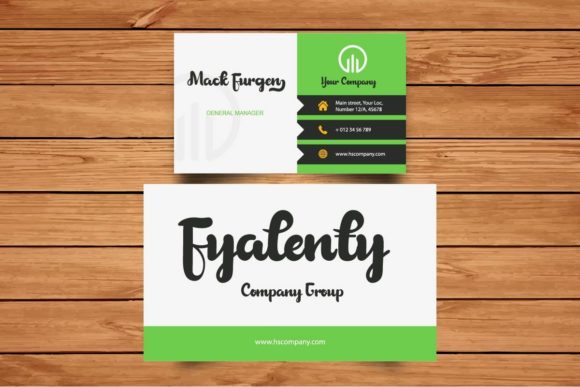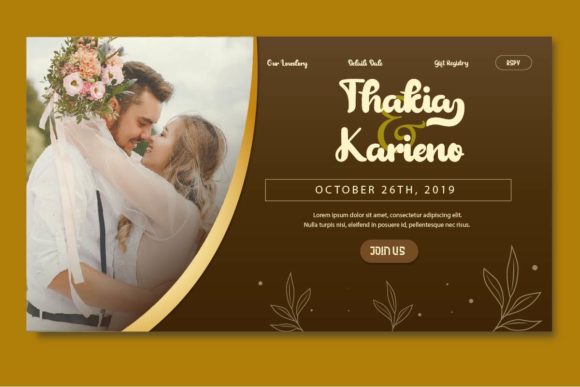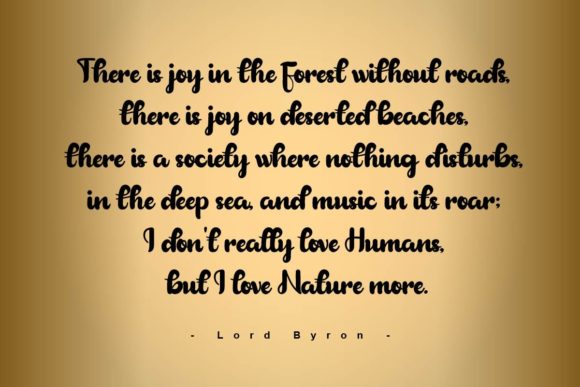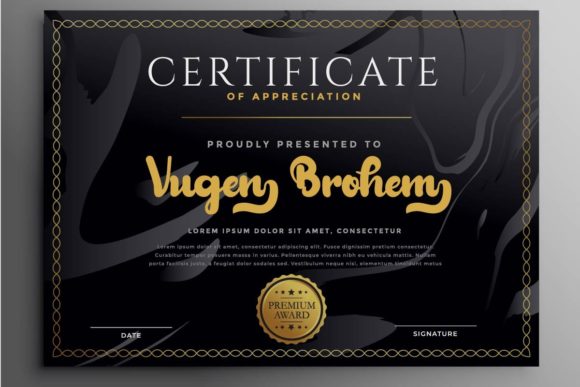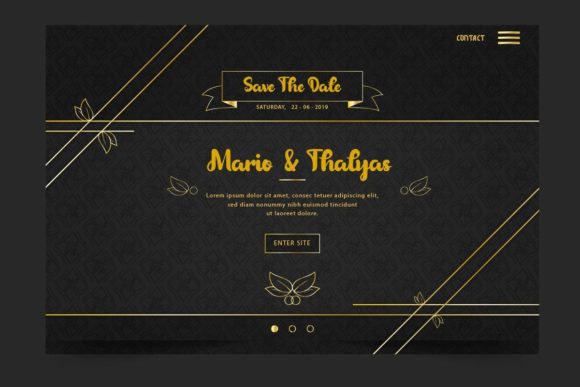
About Furgaski Font
Furgaski is a beautifully curved handwritten font that adds an attractive and soft touch to your designs. With its unique style and elegant curves, this font is sure to make a statement and stand out.
The flowing and graceful letterforms of Furgaski create a sense of beauty and charm. Each curve and line is carefully crafted to create a harmonious and balanced appearance, making it visually appealing. Whether you’re designing logos, branding materials, invitations, or any other project, Furgaski will bring a touch of sophistication and originality.
One of the key features of Furgaski is its versatility. It can be used in a variety of design contexts, from elegant and romantic themes to modern and minimalist aesthetics. The soft and gentle nature of the font makes it suitable for a range of applications, allowing you to experiment and explore different design possibilities.
The unique style of Furgaski sets it apart and gives it a distinct personality. Its soft curves and smooth lines create a sense of elegance and sophistication. Whether you’re using it for headlines, titles, or body text, Furgaski adds a touch of uniqueness and originality to your typography.
Incorporating Furgaski into your designs will help create a visually appealing and eye-catching composition. Its attractive style draws attention and creates a focal point within your design. Whether you’re using it for digital graphics, print materials, or any other medium, Furgaski will make your designs stand out from the crowd.
In conclusion, Furgaski is a beautifully curved handwritten font that adds an attractive and soft touch to your designs. Its versatile style, originality, and visual appeal make it a great choice for a range of projects. Embrace the beauty of Furgaski and let it enhance your designs with its elegance and charm.